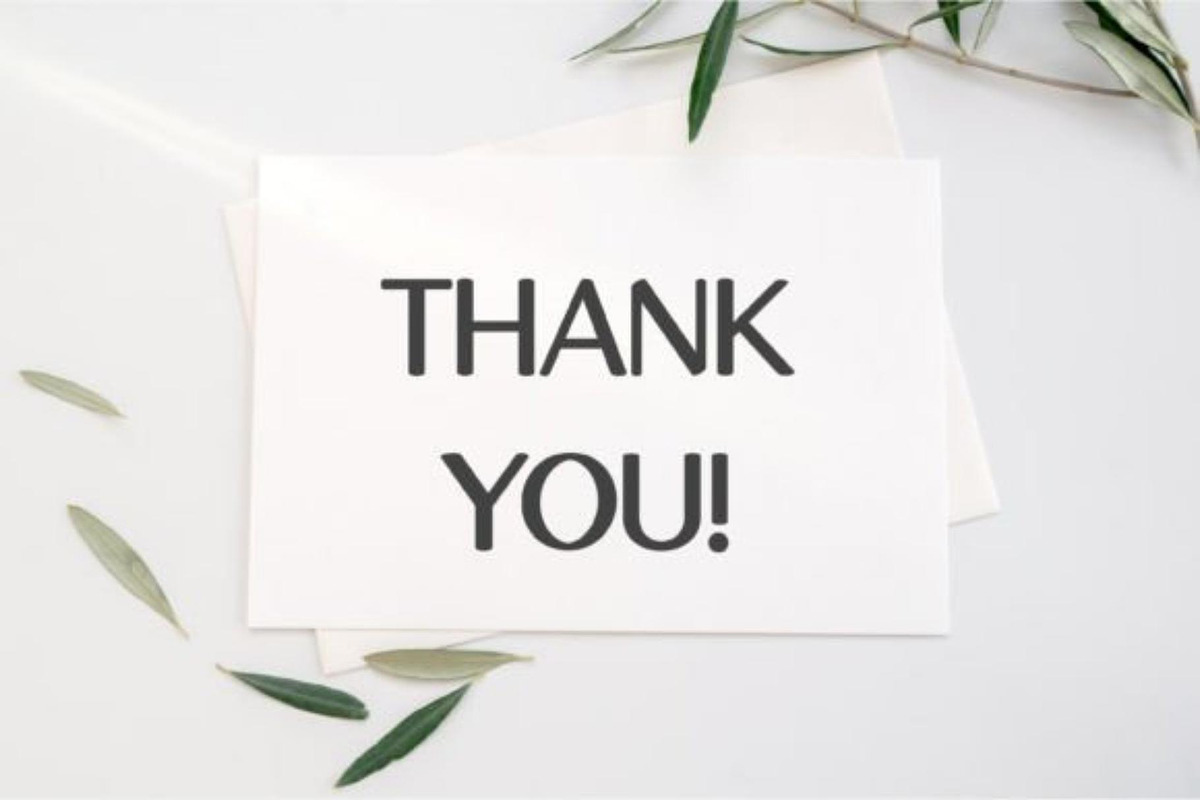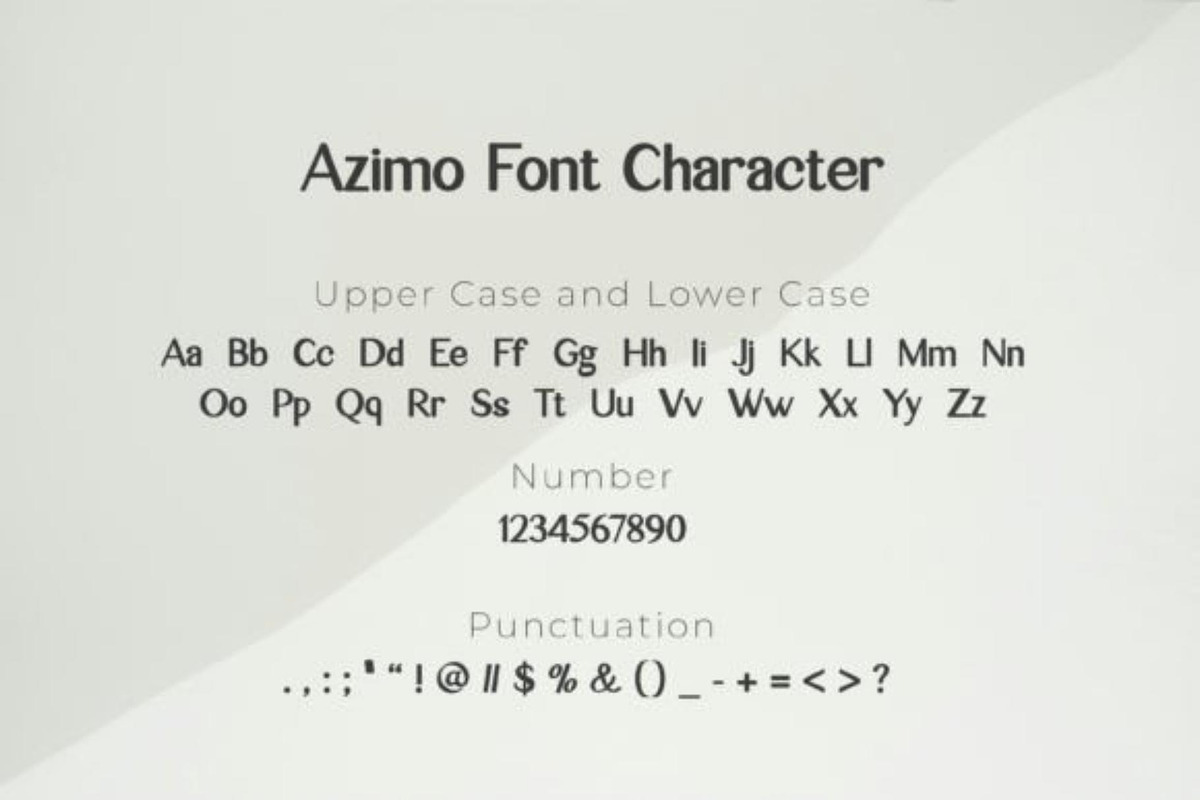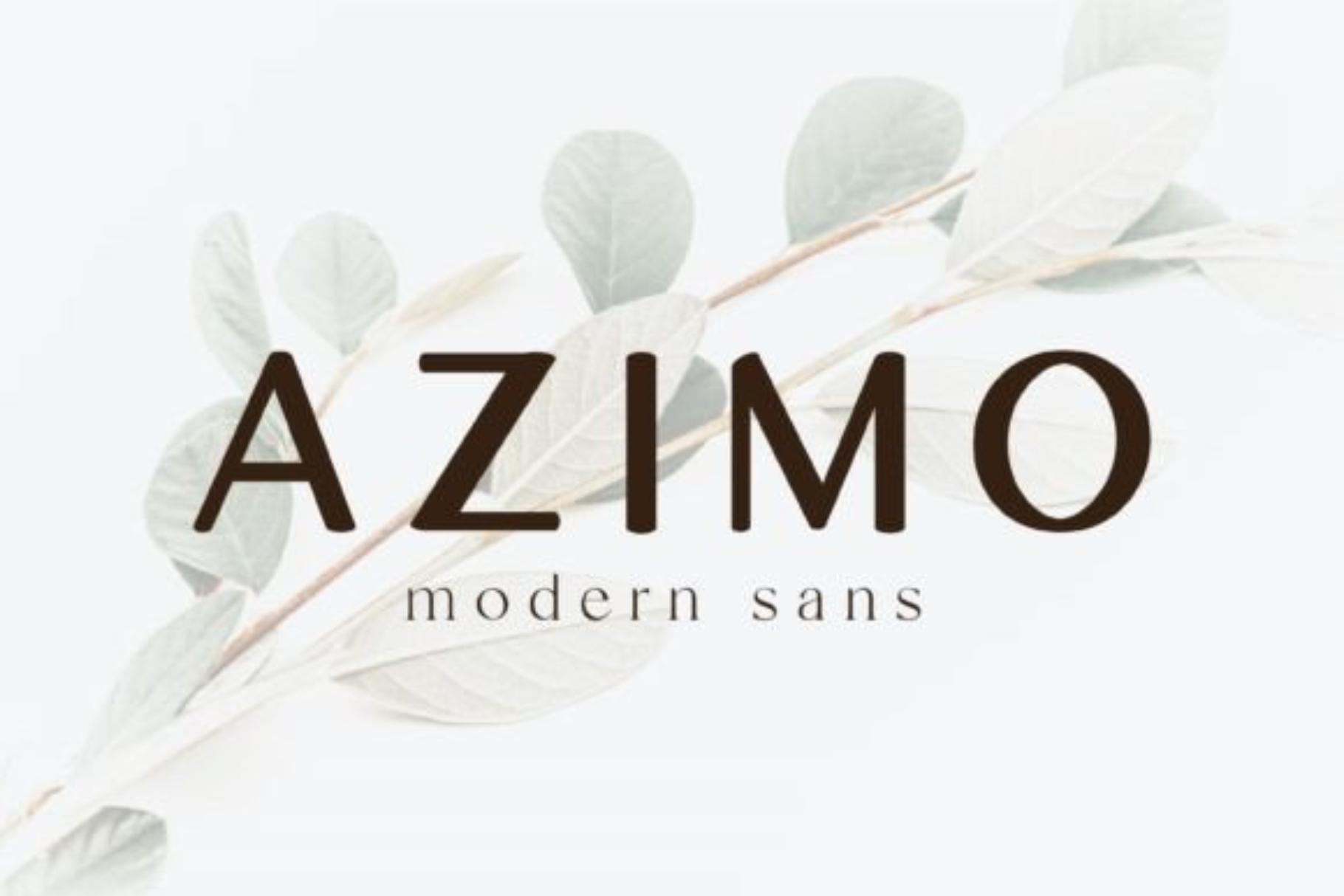
Azimo | Modern Sans Serif Font
Azimo is a modern sans serif font designed with clean lines, balanced proportions, and contemporary styling.
Its minimalist appearance makes it perfect for branding, logos, websites, packaging, and professional design projects.
• Modern Branding
• Logo Design
• Business Identity
• Website Design
• App Interfaces
• Social Media Graphics
• Packaging Design
• Editorial Layouts
• Marketing Materials
• Corporate Projects
• Uppercase & Lowercase Letters
• Numbers & Punctuation
Azimo delivers a clean and professional look that works beautifully for modern brands, digital products, and contemporary design projects.